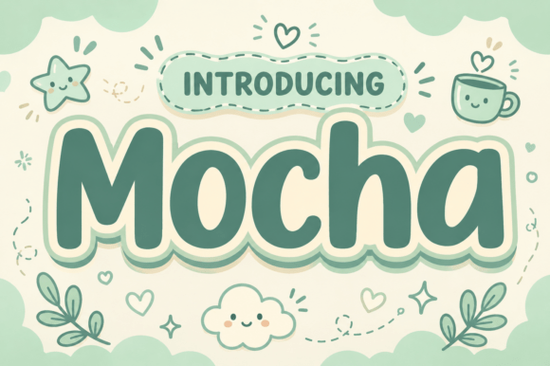
Pour some cozy warmth into your design projects with Motcha Font, a typeface that radiates comfort and gentle charm. This display font features ultra-bold, pillowy letterforms with soft, rounded contours and clean geometry, making it both visually appealing and approachable. Whether you're working on a coffee shop branding project, playful packaging, or children's book titles, Motcha Font is an excellent choice to add a touch of professional design mastery and aesthetic sweetness.
Why Choose Motcha Font for Your Design Projects?
Motcha Font stands out with its unique, layered, cloud-like sticker outline in an earthy cream and sage-green palette. This combination creates a warm and inviting feel, perfect for designs that need to convey a sense of coziness and charm. The font's versatility makes it suitable for a wide range of creative endeavors, from social media headers to product packaging.
How Does Motcha Font Enhance Branding?
When it comes to branding, the right font can make all the difference. Motcha Font’s ultra-bold, yet soft and rounded letterforms bring a sense of approachability and comfort. This makes it ideal for brands that want to create a welcoming and friendly image. For example, a local coffee shop could use Motcha Font in their signage and menus to give customers a warm, inviting experience.
Using Motcha Font for Packaging and Product Labels
Product packaging and labels are often the first point of contact between a brand and its customers. Motcha Font’s unique personality and earthy color palette can help products stand out on the shelf. Its charming and playful nature is particularly well-suited for lifestyle products, such as organic soaps, artisanal foods, and handmade crafts. The font’s clean and bold design ensures that important information is clear and easy to read.
Creating Engaging Social Media Headers with Motcha Font
Social media headers are a key element in establishing a brand’s online presence. Motcha Font’s distinctive style and warm, inviting feel can help create engaging and memorable headers. Whether you’re designing for a small business, a creative hobbyist, or a personal brand, using Motcha Font can help your headers stand out and leave a lasting impression on your audience.
Designing Children’s Book Titles with Motcha Font
Children’s books require fonts that are not only visually appealing but also easy to read and engaging. Motcha Font’s soft, rounded contours and clean geometry make it a great choice for book titles. The font’s playful and charming nature can help capture the attention of young readers and complement the illustrations and overall theme of the book.
Combining Motcha Font with Other Creative Fonts
To create a more dynamic and versatile design, consider pairing Motcha Font with other creative fonts. For instance, you could use a Kidpop Font for a more playful and whimsical look, or a Remember Things Font for a touch of nostalgia. Other options like Varsity Sport Army Font and Picky Retro Font can add a different flavor to your designs, while Modern Vintage Font can provide a classic, timeless feel.
Tips for Using Motcha Font Effectively
- Balance with Simplicity: While Motcha Font is bold and eye-catching, it’s best used in moderation. Use it for headlines and key elements, and pair it with simpler, more legible fonts for body text.
- Play with Colors: Experiment with the earthy cream and sage-green palette, but don’t be afraid to try other colors that complement your brand and design theme.
- Test Readability: Ensure that the font is readable at various sizes, especially if you’re using it for packaging or social media graphics where space may be limited.
By following these tips, you can make the most of Motcha Font and create designs that are both visually appealing and effective. Whether you’re a designer, crafter, print-on-demand seller, or small business owner, Motcha Font is a valuable addition to your creative toolkit.
Next Steps: Start Creating with Motcha Font
- Brainstorm design ideas and sketch out your concepts.
- Experiment with different color palettes and font combinations.
- Create your design and test it in various formats to ensure readability and visual appeal.
- Share your final design and get feedback from your audience.
With Motcha Font, you have a versatile and charming typeface that can add a touch of warmth and professionalism to your projects. Start exploring its possibilities and see how it can transform your designs.